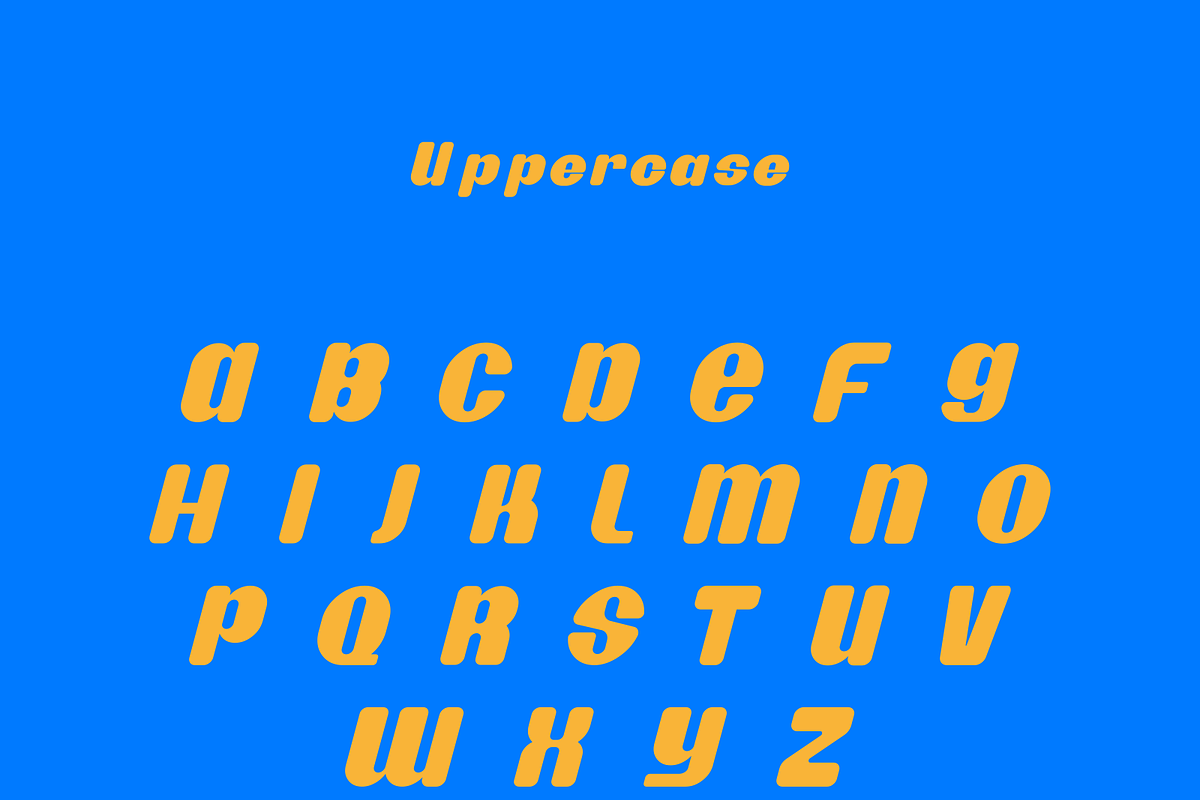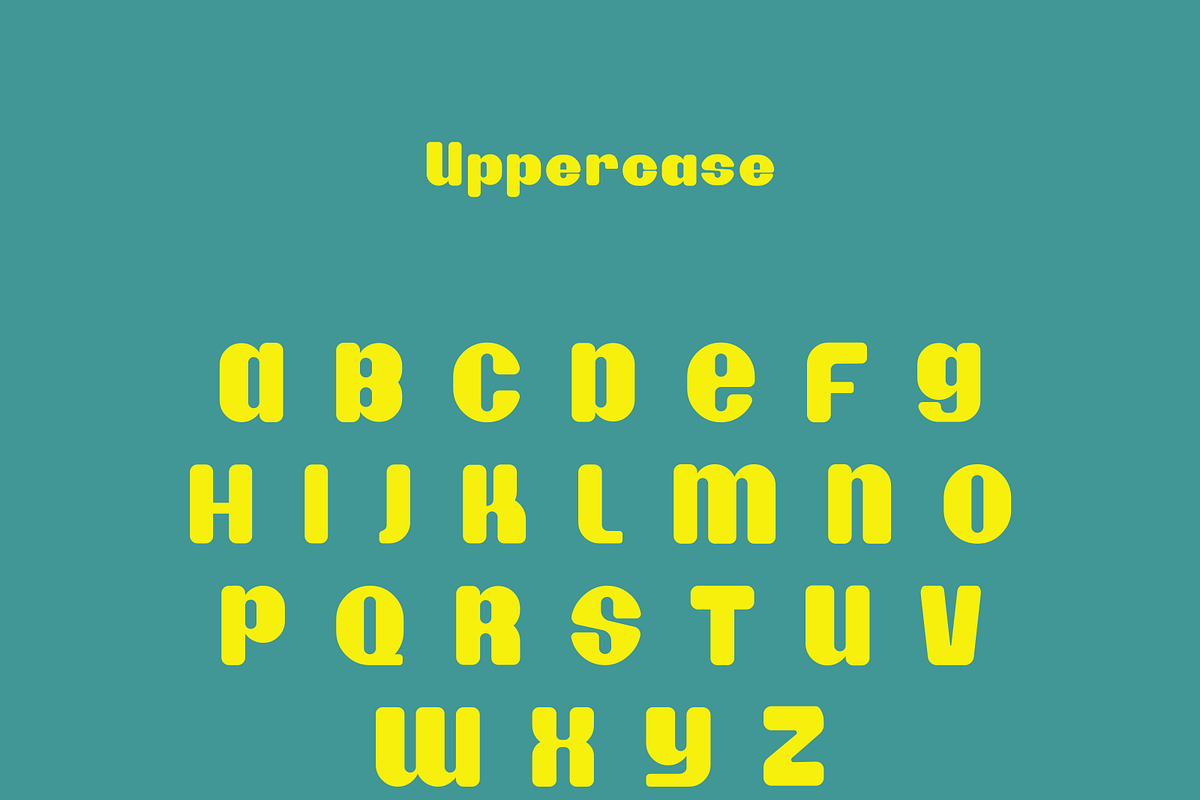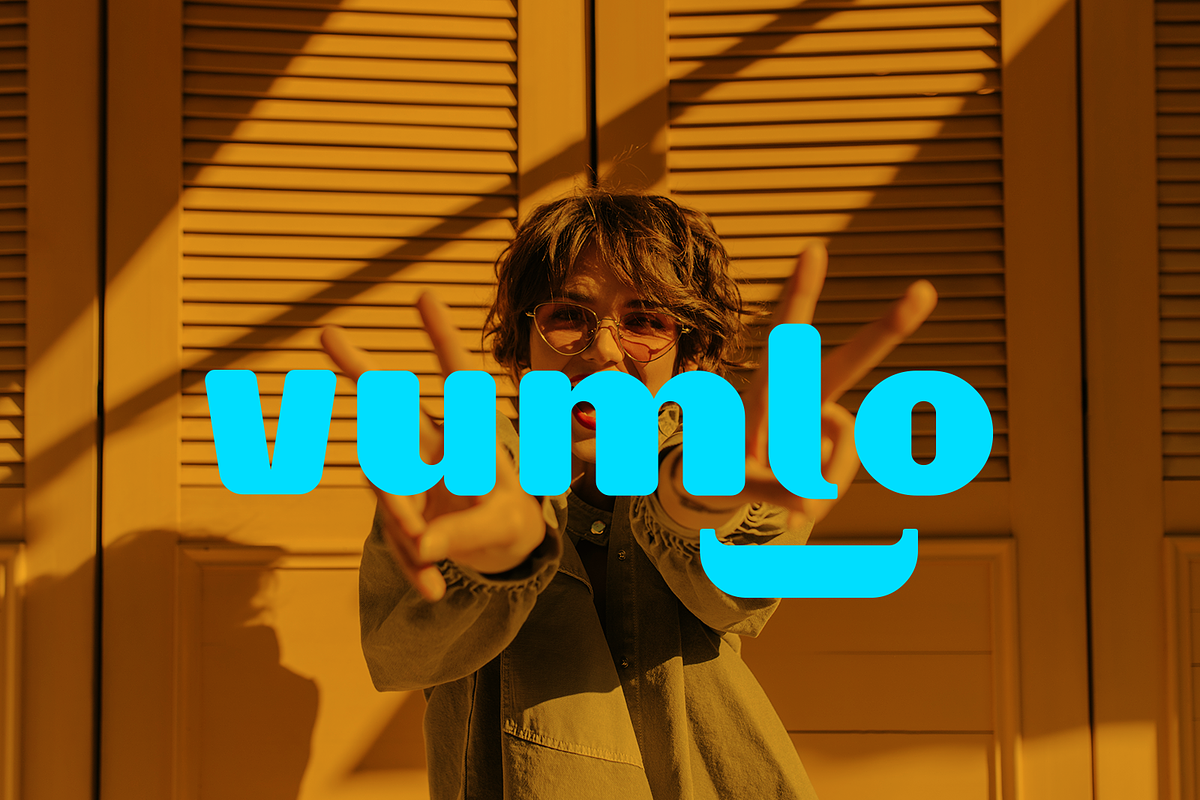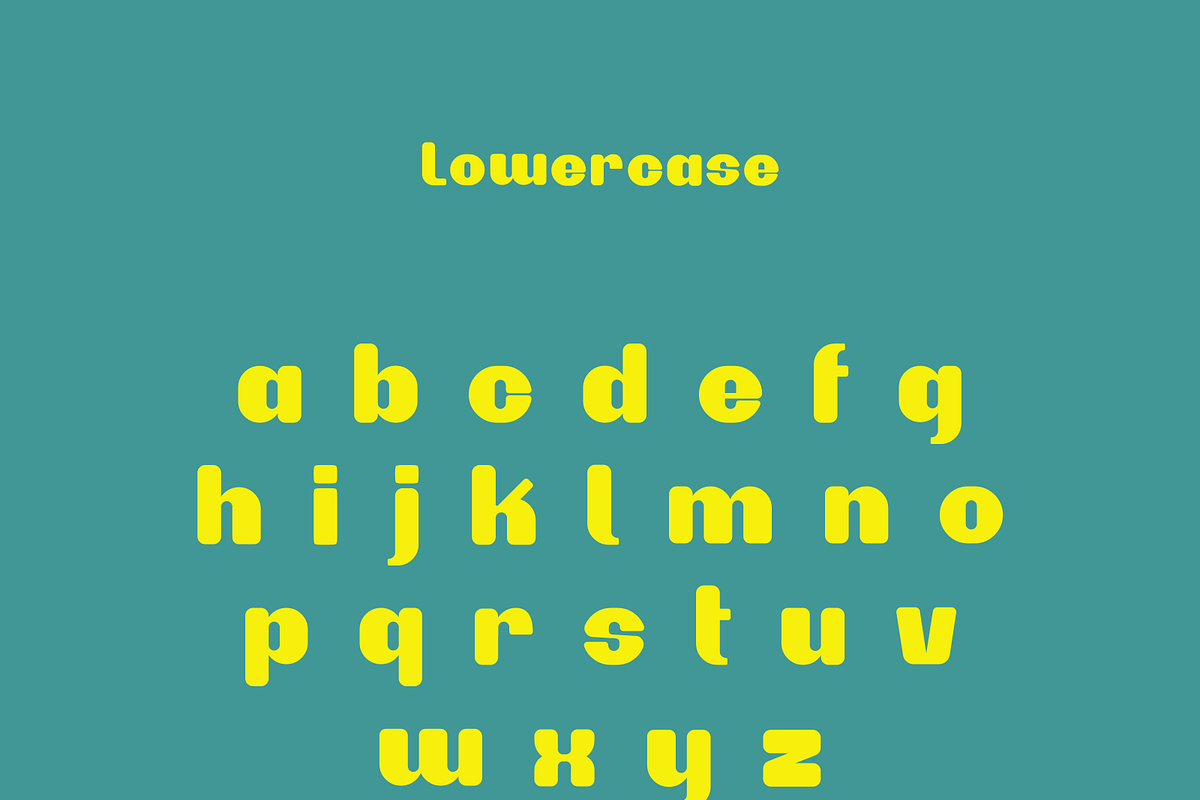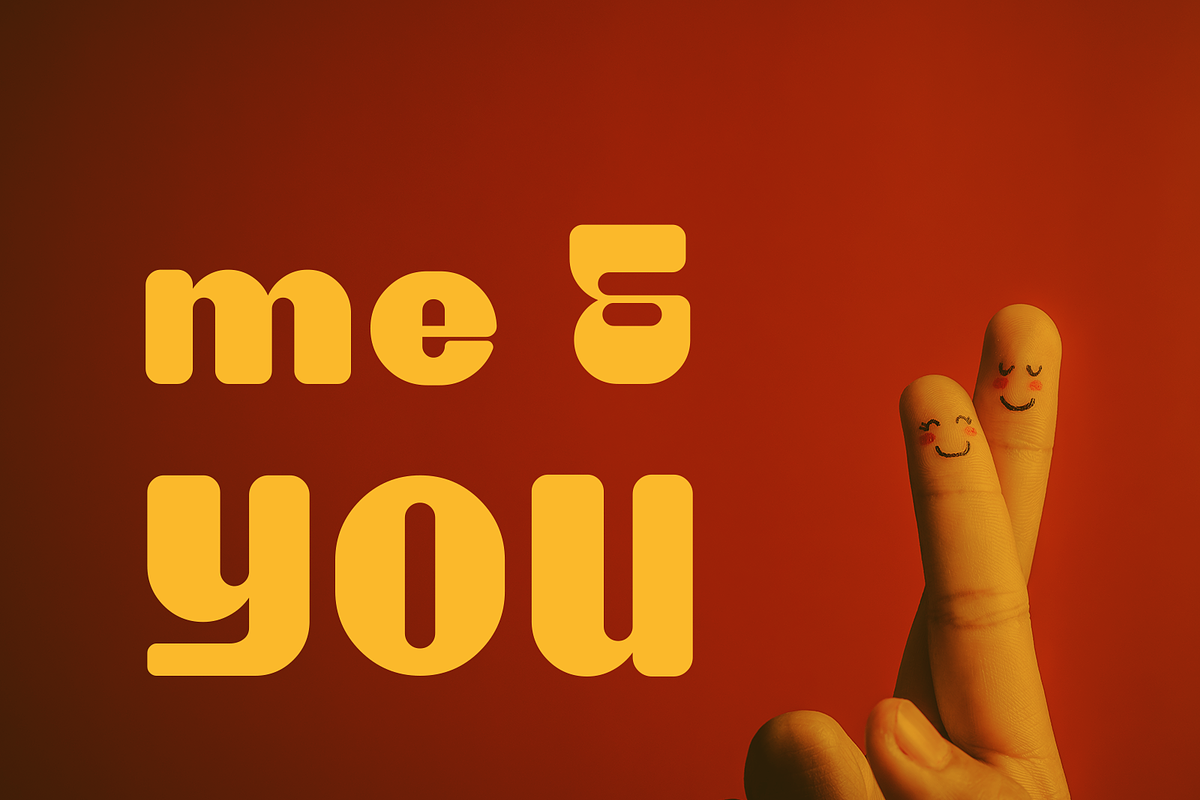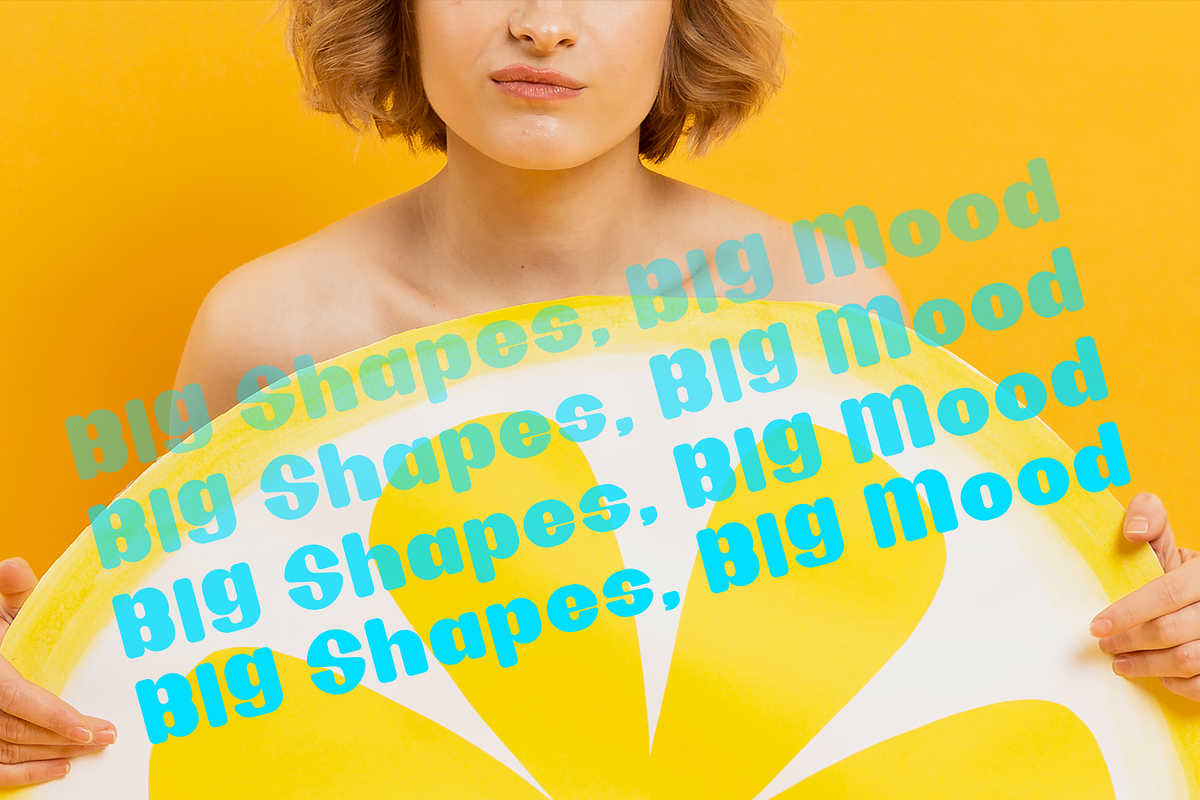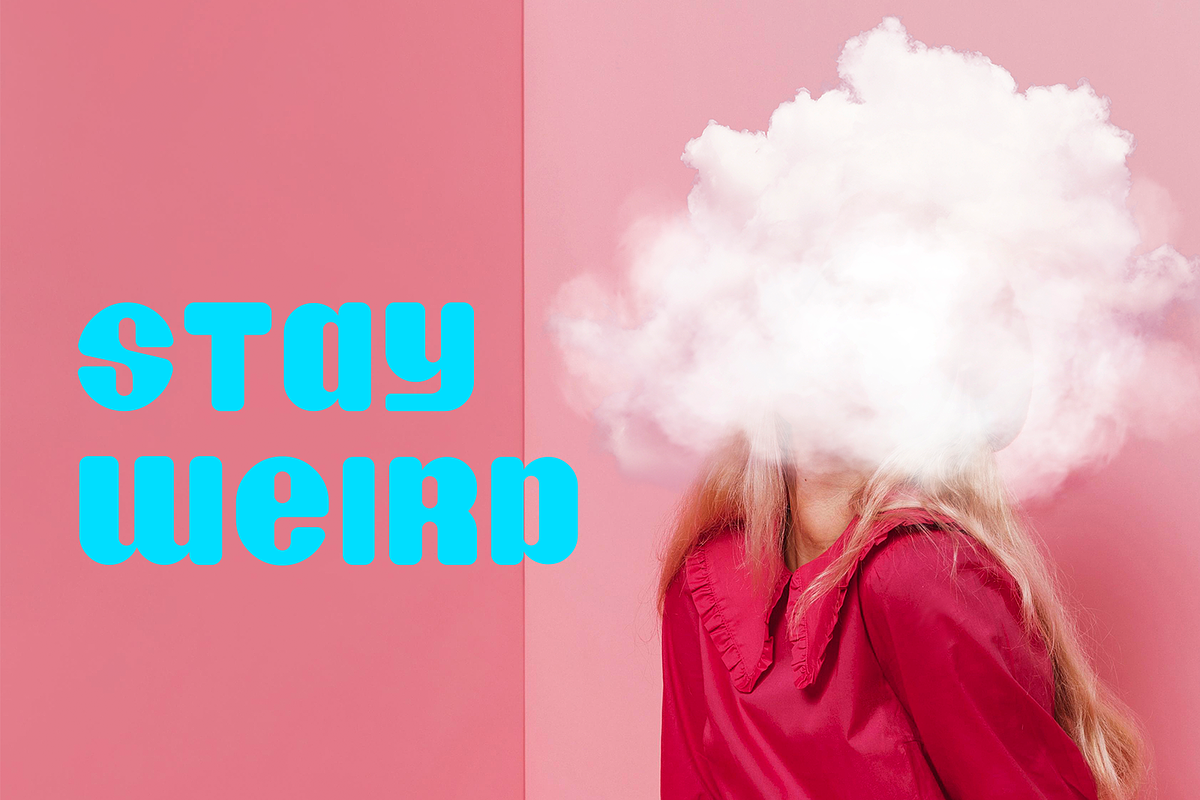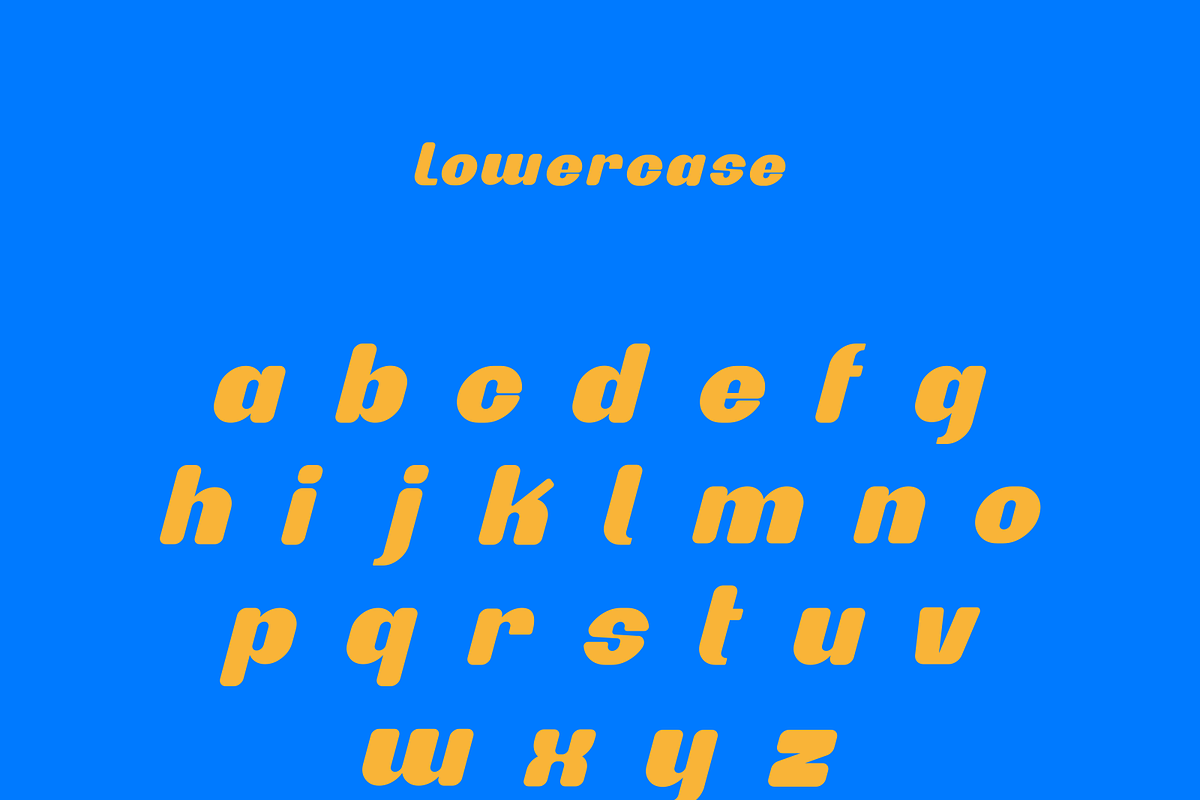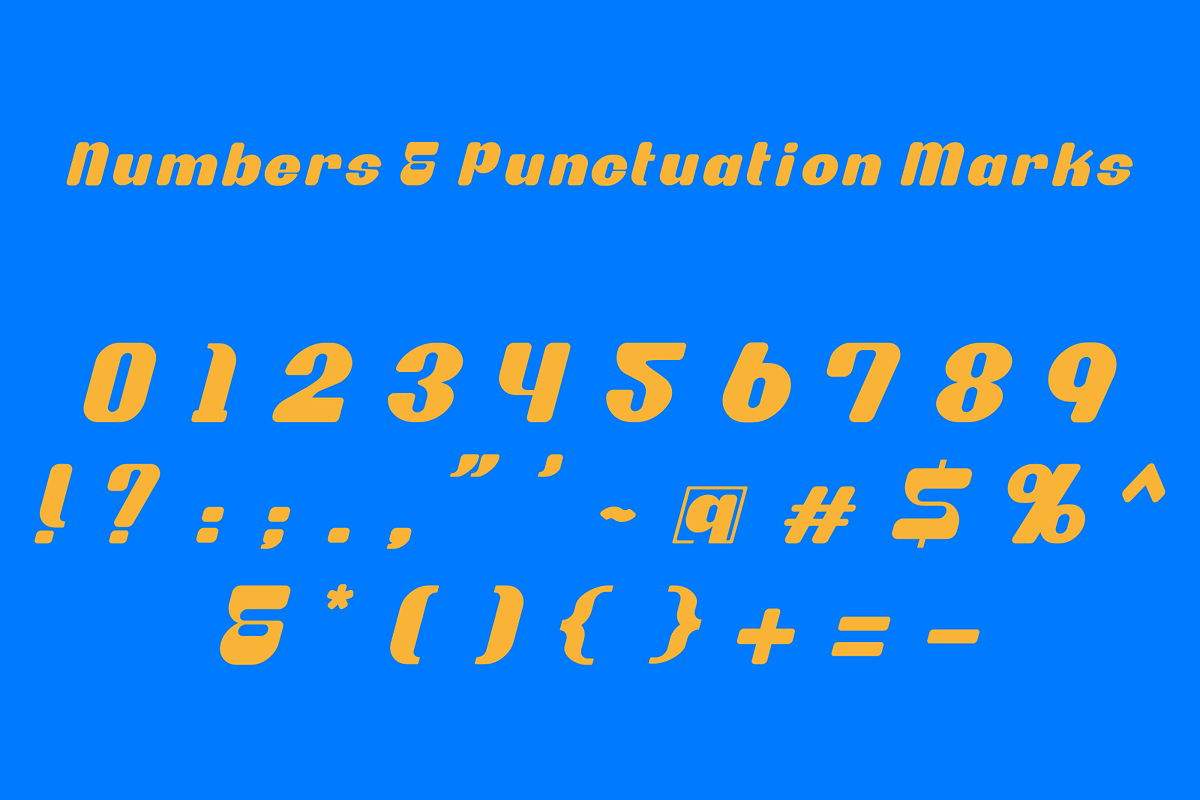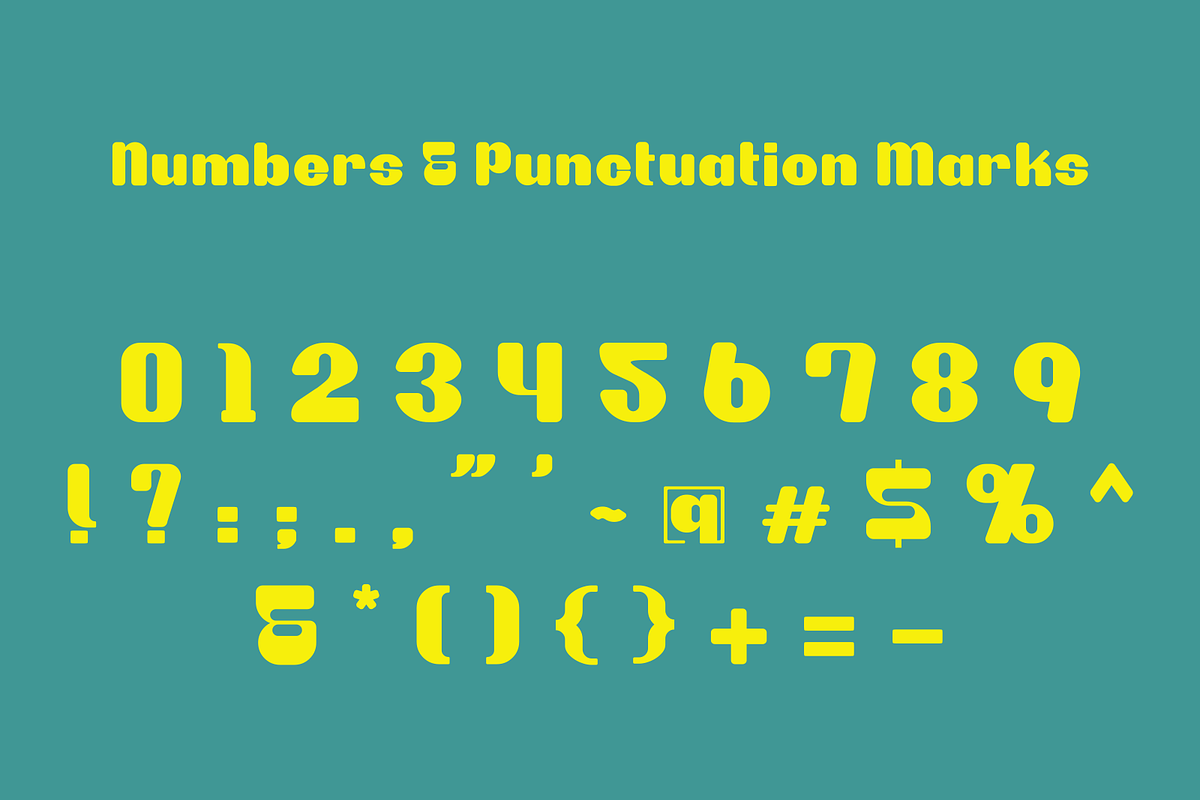
VUMLO Font, Display Typeface
VUMLO is a bold experimental display typeface built around rounded geometric forms, playful proportions, and distinctive cut-out details.
With its soft, chunky shapes and retro-futuristic character, VUMLO brings a strong visual personality to typography and branding projects.
VUMLO combines a bold geometric structure with rounded, playful forms, making it especially suitable when you want typography to become a strong visual element rather than simply convey information.
Font name: VUMLO Style: Bold / Rounded / Geometric / Experimental / Display